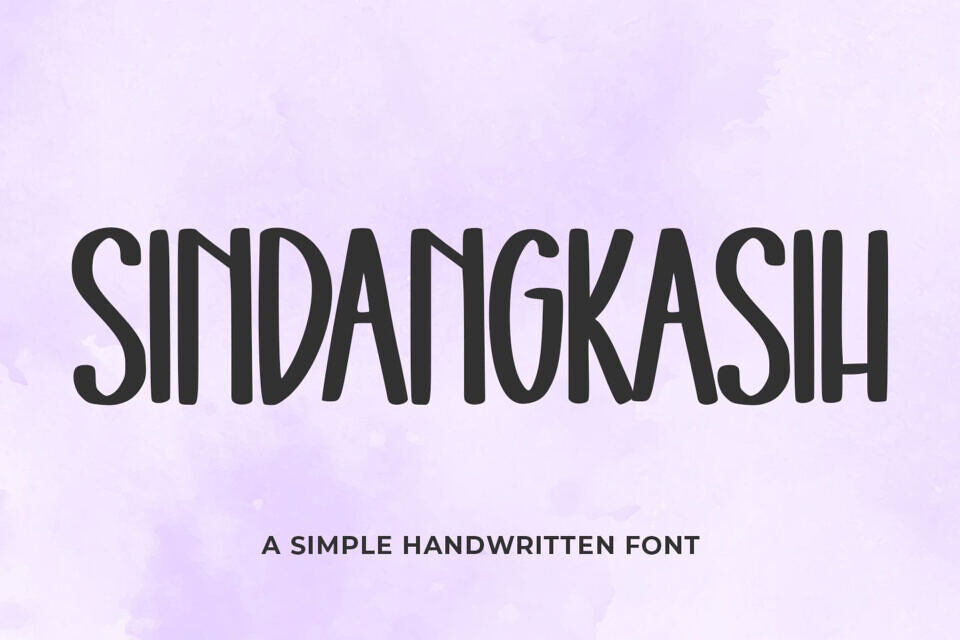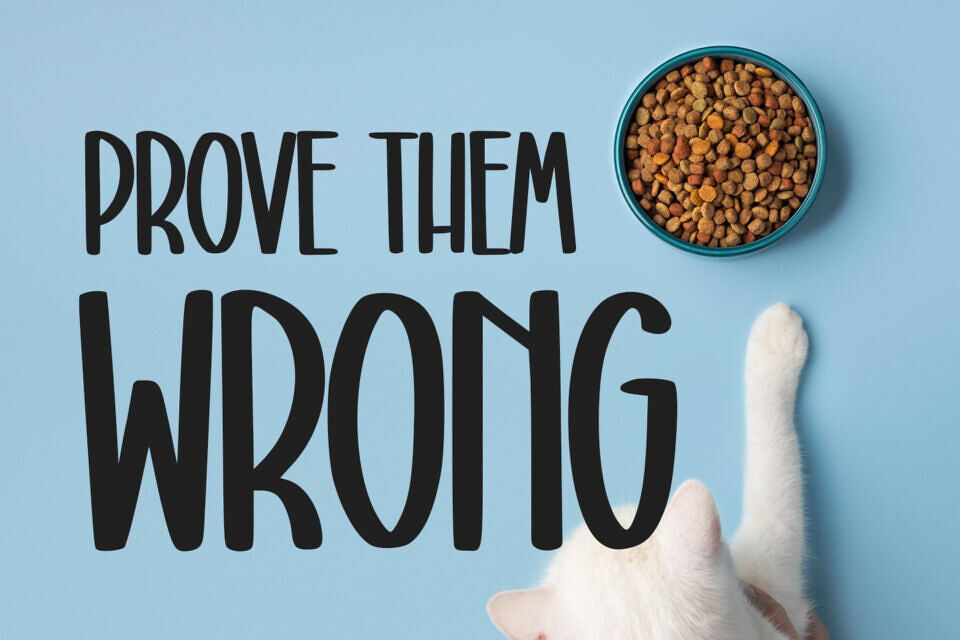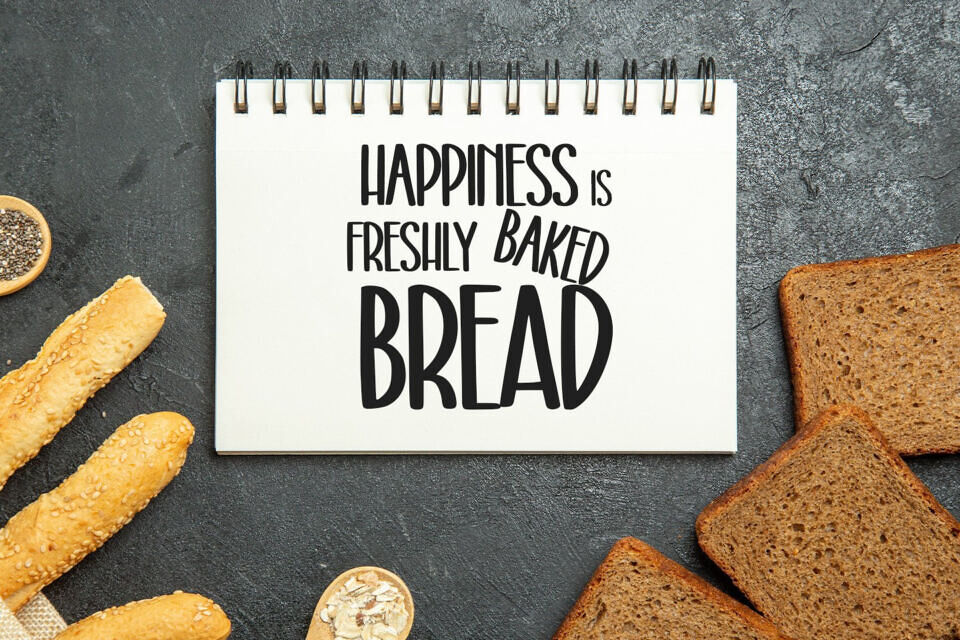
Sindangkasih is a simple duo font (handwritten and display) perfect for T-shirts, quotes, mugs, tote bag designs, cards, banners, social media, and any craft projects. This font will make a great addition to your fonts library, as it will make all your creative ideas outstanding!